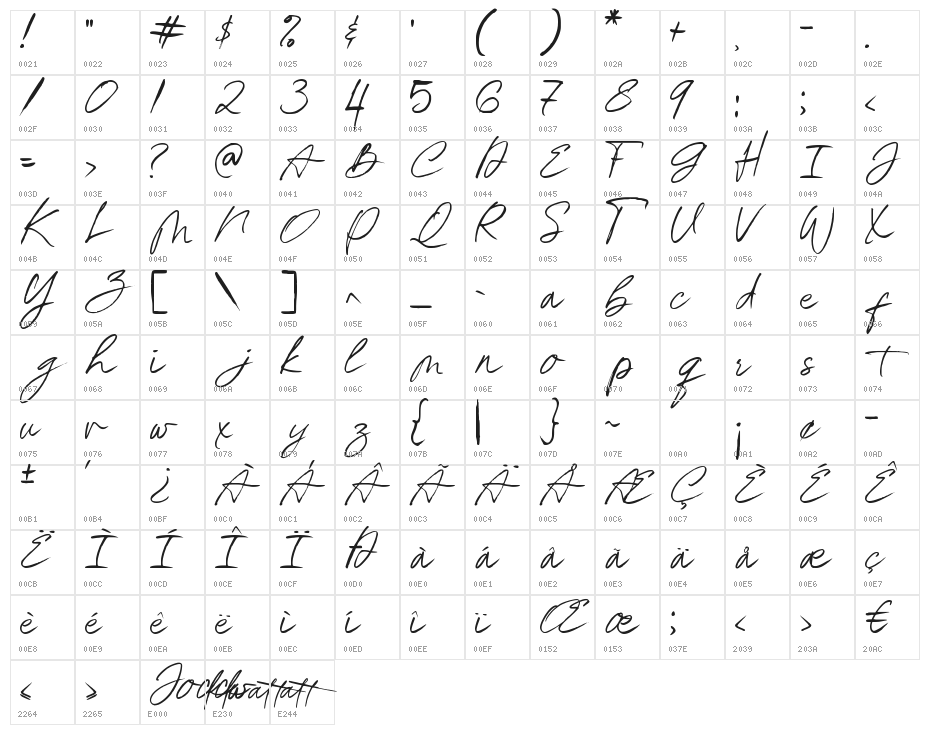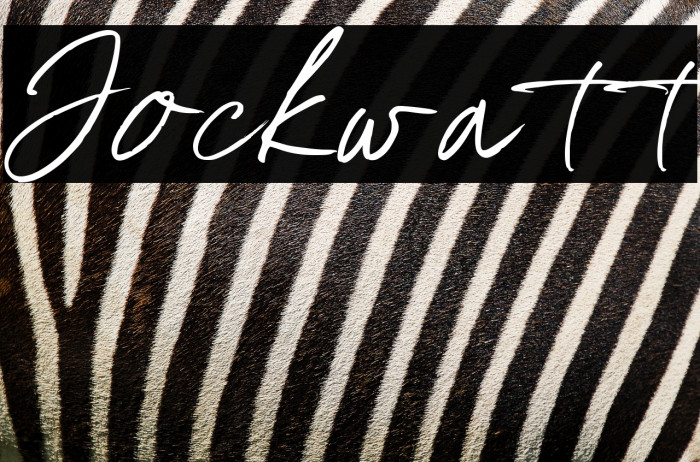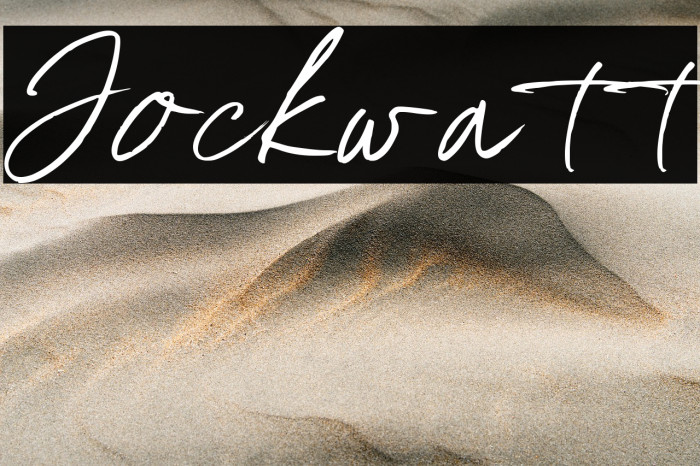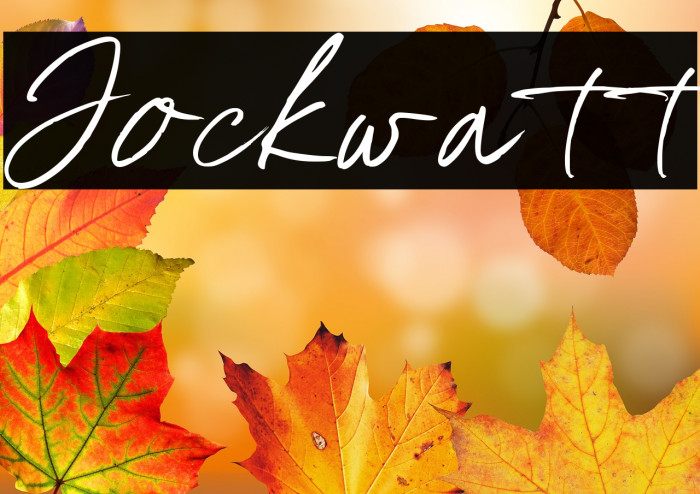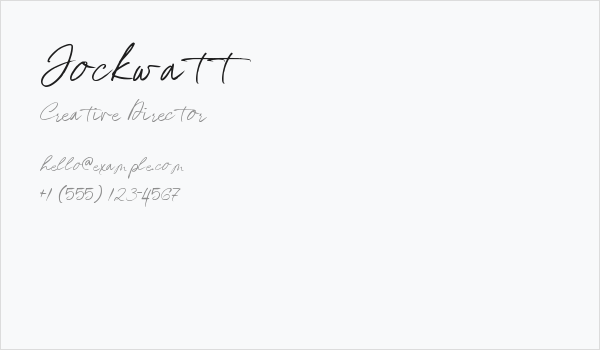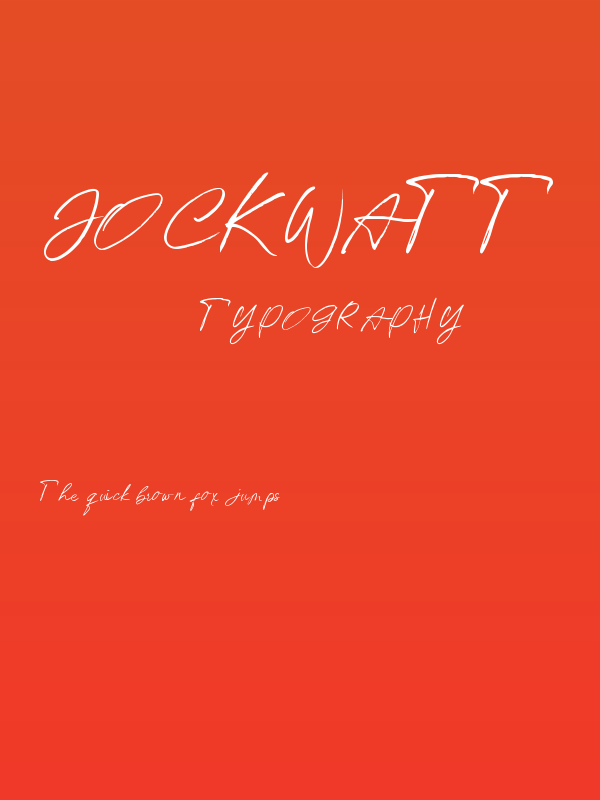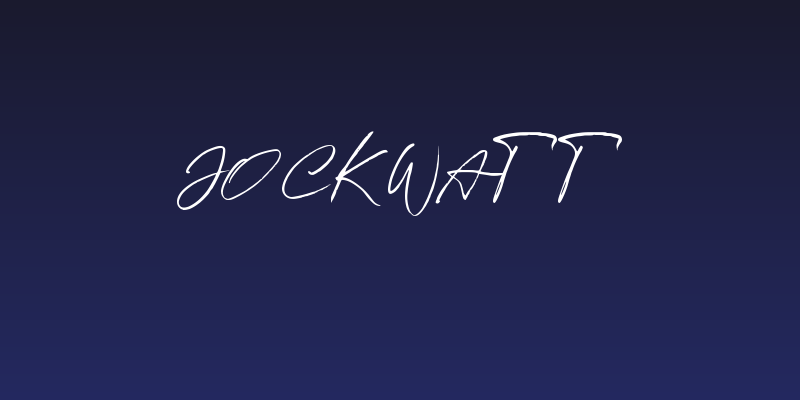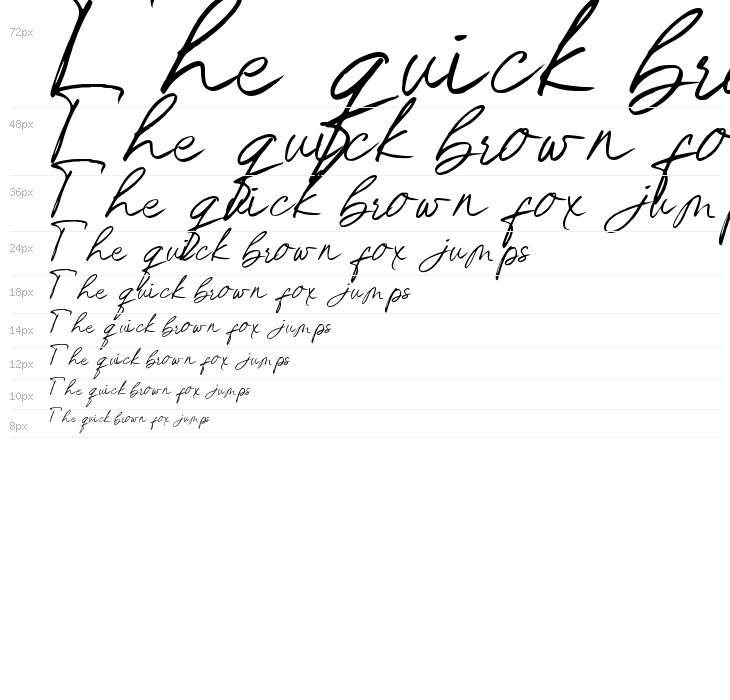
Jockwatt Font
Jockwatt Description
This font features a dynamic and fluid handwritten style, characterized by its elegant cursive script. The letters are connected, creating a seamless flow that mimics natural handwriting. The strokes vary in thickness, adding a lively and personal touch to the text. The uppercase letters are slightly larger and more pronounced, while the lowercase letters maintain a consistent and harmonious appearance. Numbers and special characters are crafted with the same attention to detail, ensuring a cohesive look across all elements. This font exudes a sense of creativity and spontaneity, making it ideal for projects that require a personal and artistic flair.
| Use Case | Logos, Invitations, Artistic projects |
| Proposed Projects | Ideal for wedding invitations, personal branding, greeting cards, and artistic projects. |